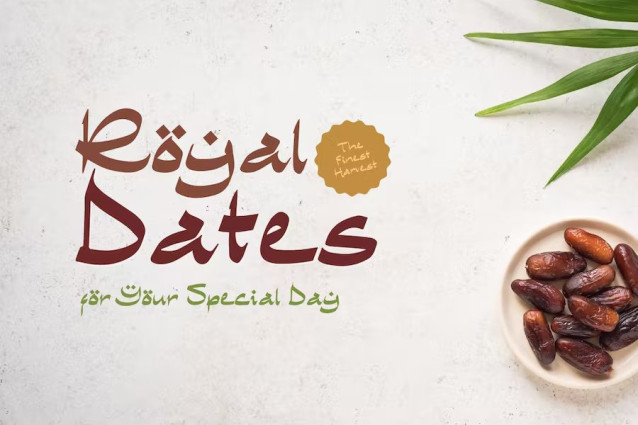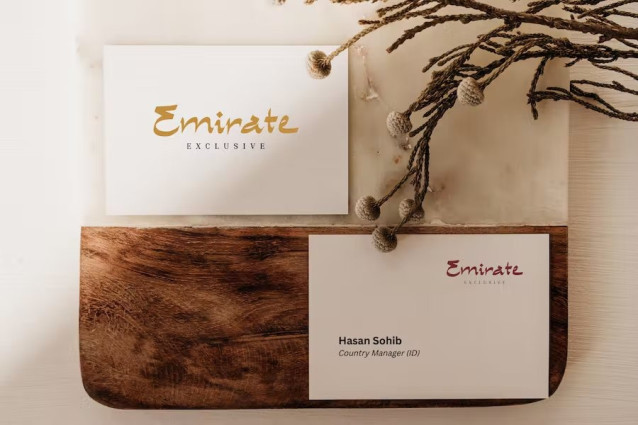
Rubaith Font
Rubaith Font is a new font from Slidehack. This arabic style font will be perfect for your headline font, logo font and other display. Especially for any Islamic, arabic, or middle east cultural event.